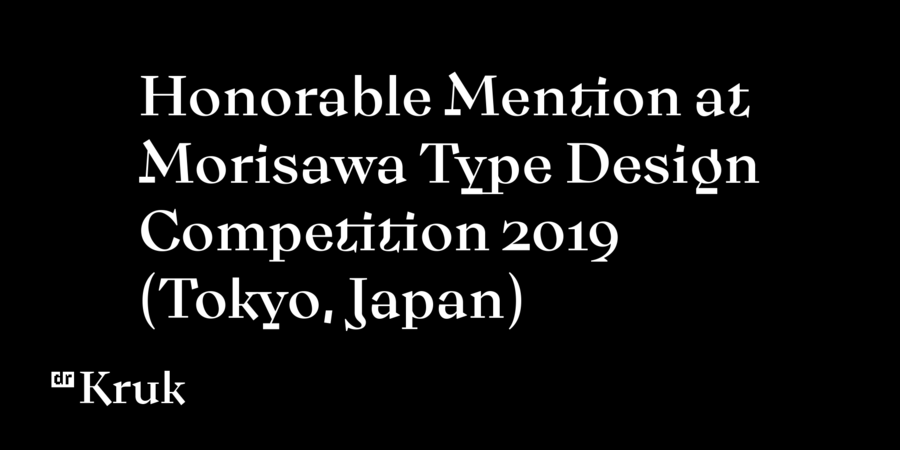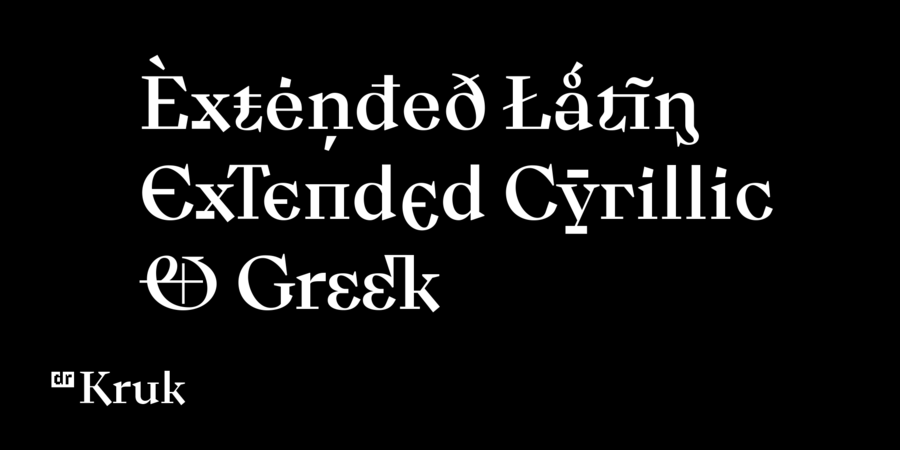
About DR Kruk SingleThis is a contrast antiqua with two types of serifs: linear and slabs. Classical shapes and proportions are combined with original details, which gives the typeface a strong personality. DR Kruk has a honorable Mention at Morisawa Type Design Competition 2019 (Tokyo, Japan). The font supports more than 60 languages in Latin and Cyrillic, as well as Greek and Vietnamese. Cyrillic is presented in the form of familiar graphemes of European and Asian Cyrillic, as well as Ukrainian and Bulgarian versions of letters. DR Kruk has wide support for opentype features: many ligatures, alternatives, different sets of figures, etc. The typeface was designed by Dmytro Rastvortsev in 2021.
Associations for font family DR Kruk SingleTypeface personality and character:
solid, original, distinctive, sharp, cutting, crisp, rigid, iron, steel, urban, unusual, proud, dynamic, artistic, architectural, hammered, splashy, notable, bright, ambitious, experimental, active, heroic, knightly, daring, expressive, strange, ancient, historical, beery, educated, unique, voiced, ironic, witty, dangerous, extravagant, broken, picturesque, handicraft, interesting, solemn, esthetic, fashionable, intricate, pretentious, nonconformist, Bohemian
Typeface associated with activities:
city, fashion, clothes, footwear, monument, memorial, architecture, design, trophy, reward, museum, headstone, sculpture, history, restaurant, knight, armor, tattoo, sword, Antiques, beer, pub, art, artist, menu, theater, castle, tourism, bank note, boutique, helmet, flag, cards, heraldry, snack, spice, craft, blacksmith, alcohol, reconstruction, souvenir, graphics, money Typeface associated with age: